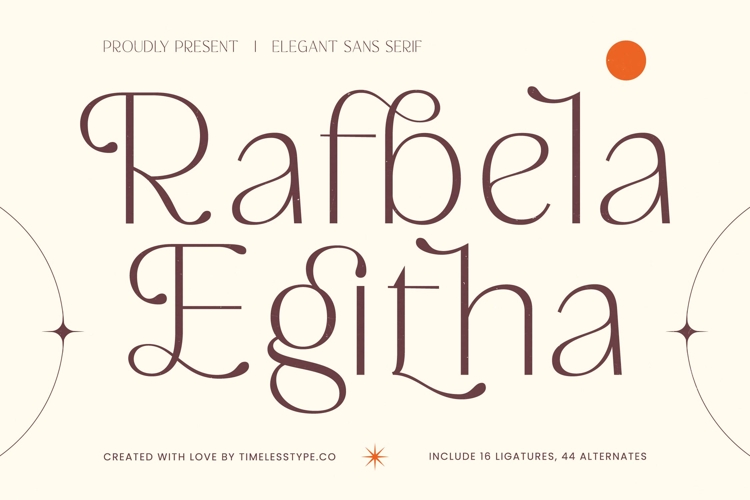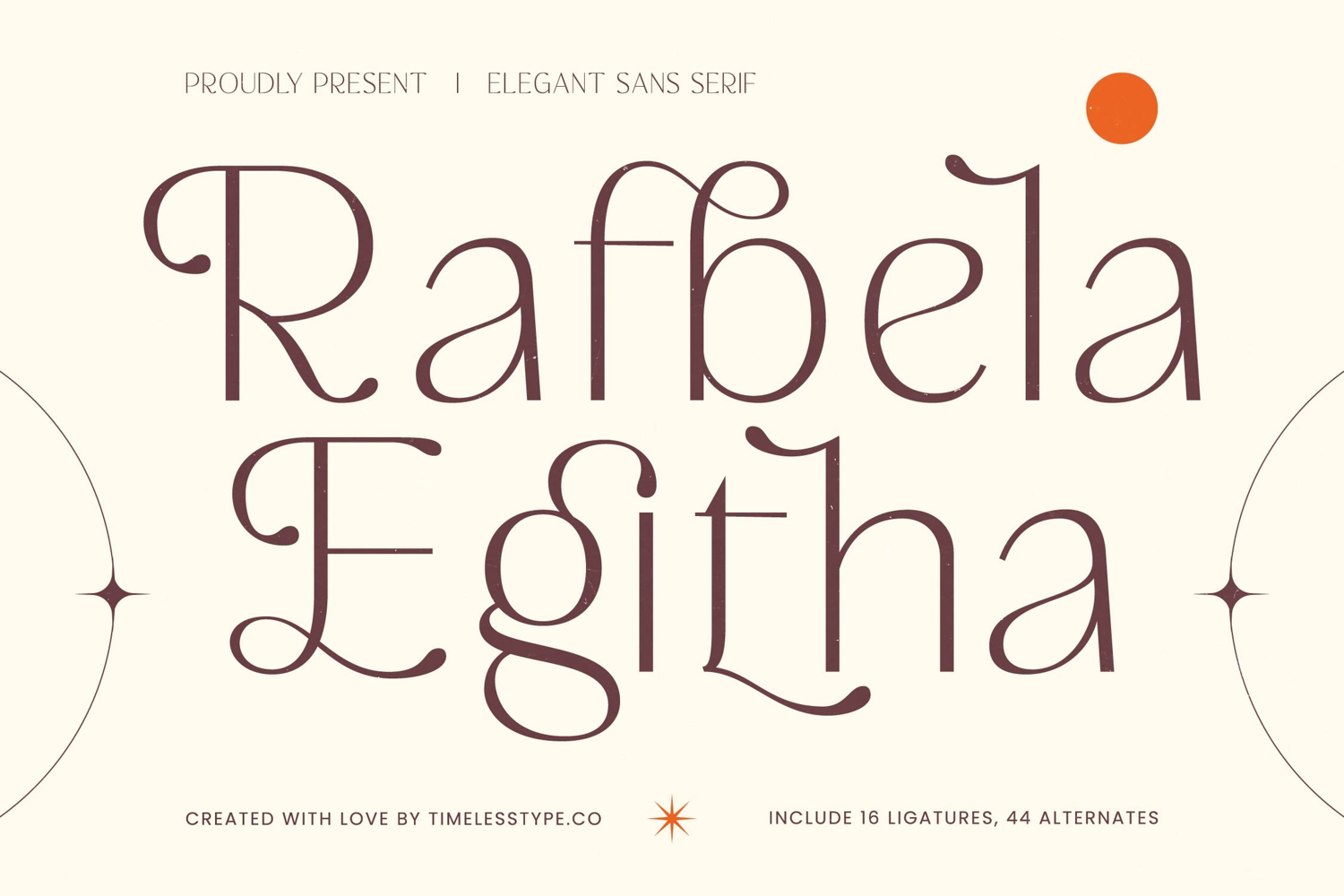
Rafbela Egitha - Elegant Sans Serif Display
Elevate your design with the exquisite Rafbela Egitha - Elegant Sans Serif Display, a typeface that seamlessly blends modern sophistication with timeless allure. Its distinctive high-contrast strokes and graceful letterforms create an immediate visual impact, capturing attention with refined elegance. This font is meticulously engineered for designers seeking unparalleled artistry in every project.
Unleash unparalleled creative flexibility through Rafbela Egitha - Elegant Sans Serif Display’s comprehensive character set. Featuring 16 ligatures and 44 unique alternates, this font offers extensive customization to craft truly distinctive typographic expressions. These thoughtful additions enable you to personalize headlines, logos, and display text, ensuring your designs resonate with artistic depth and individuality.